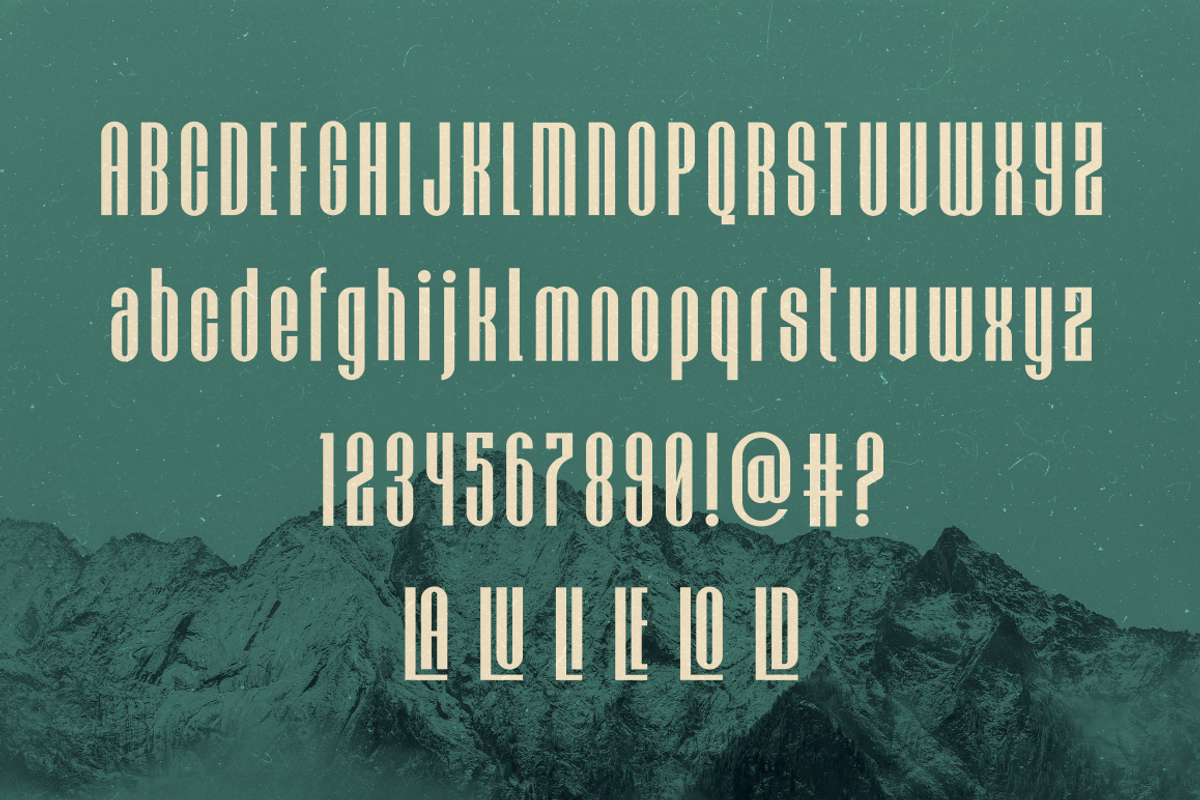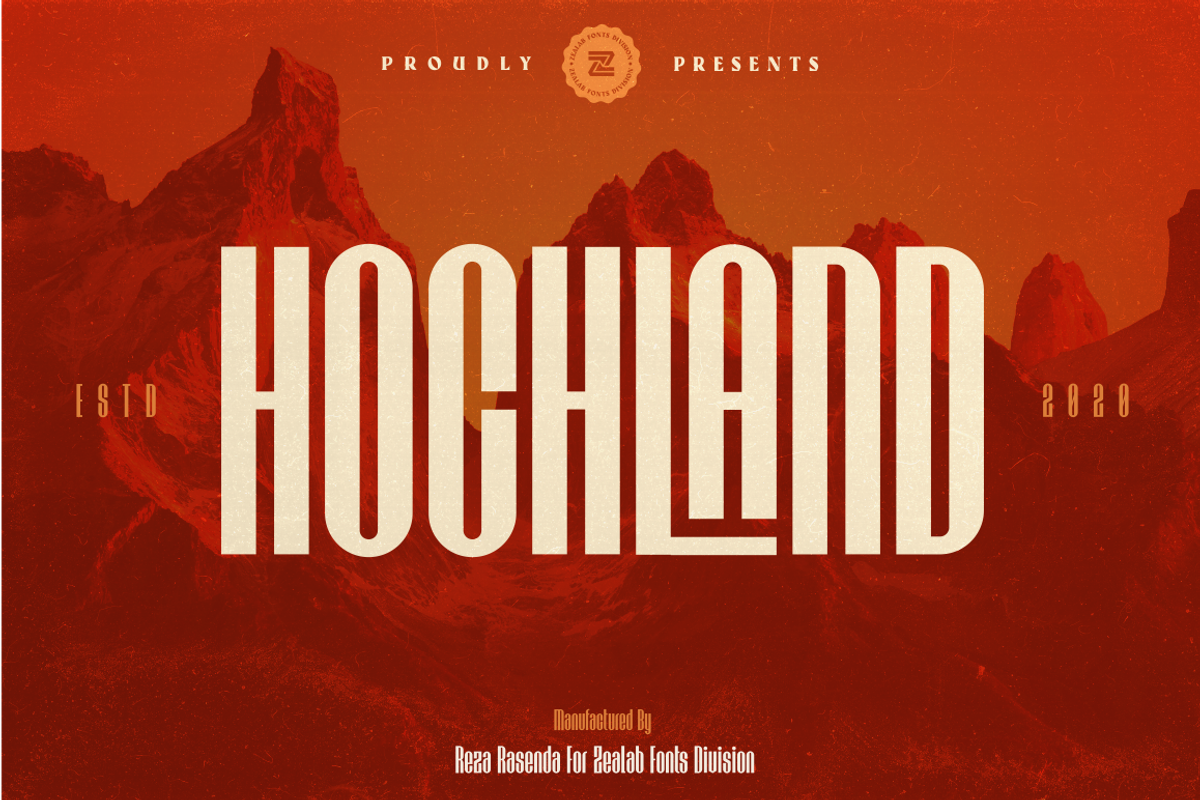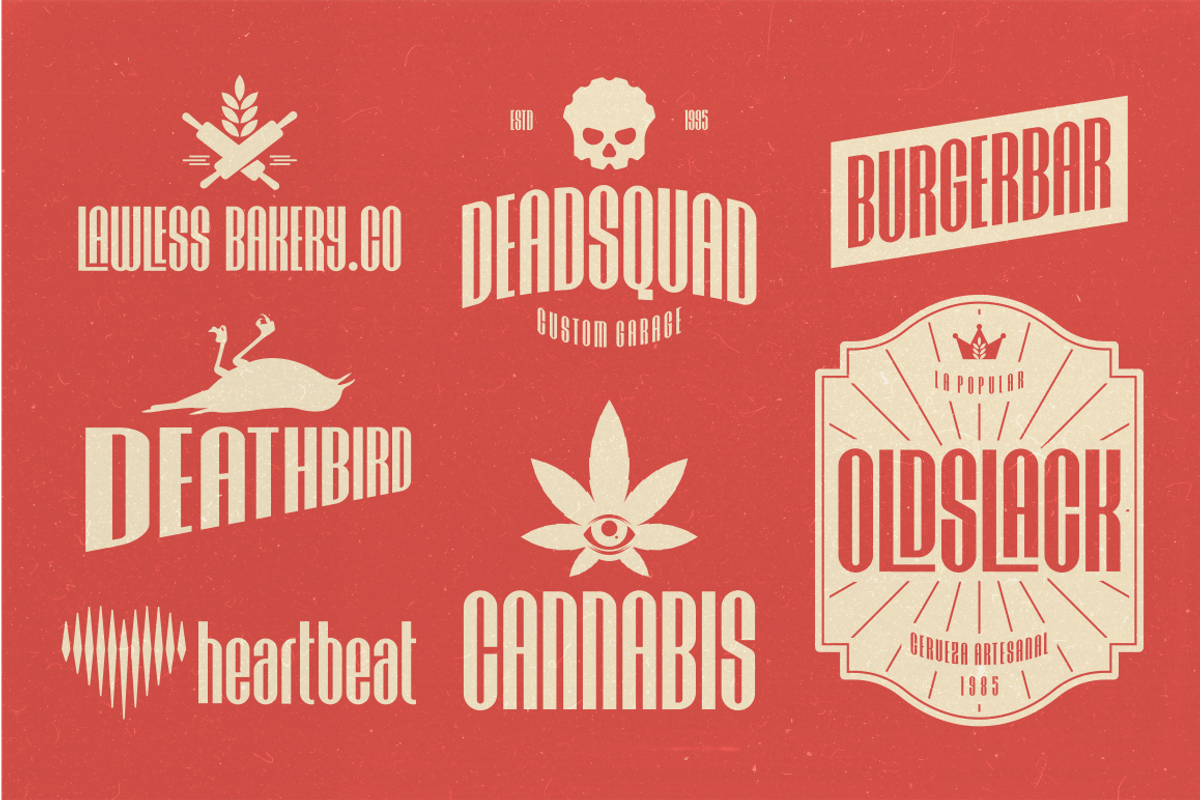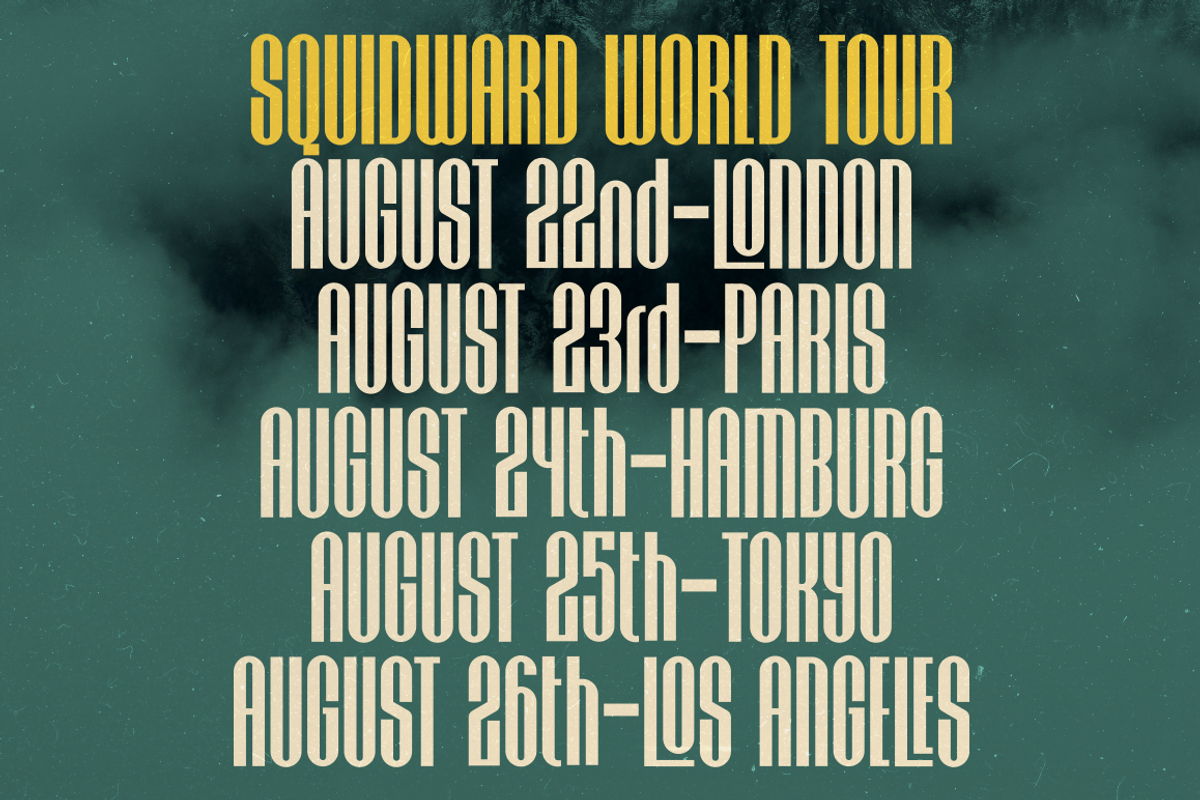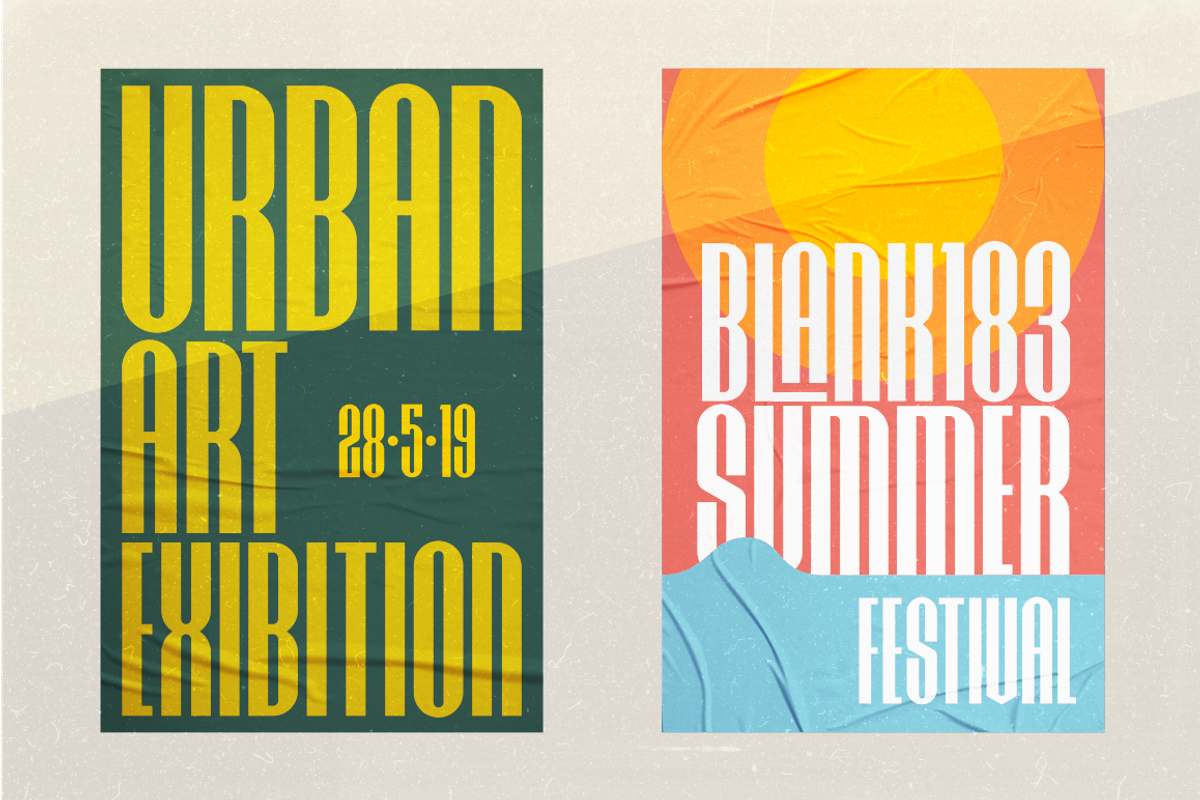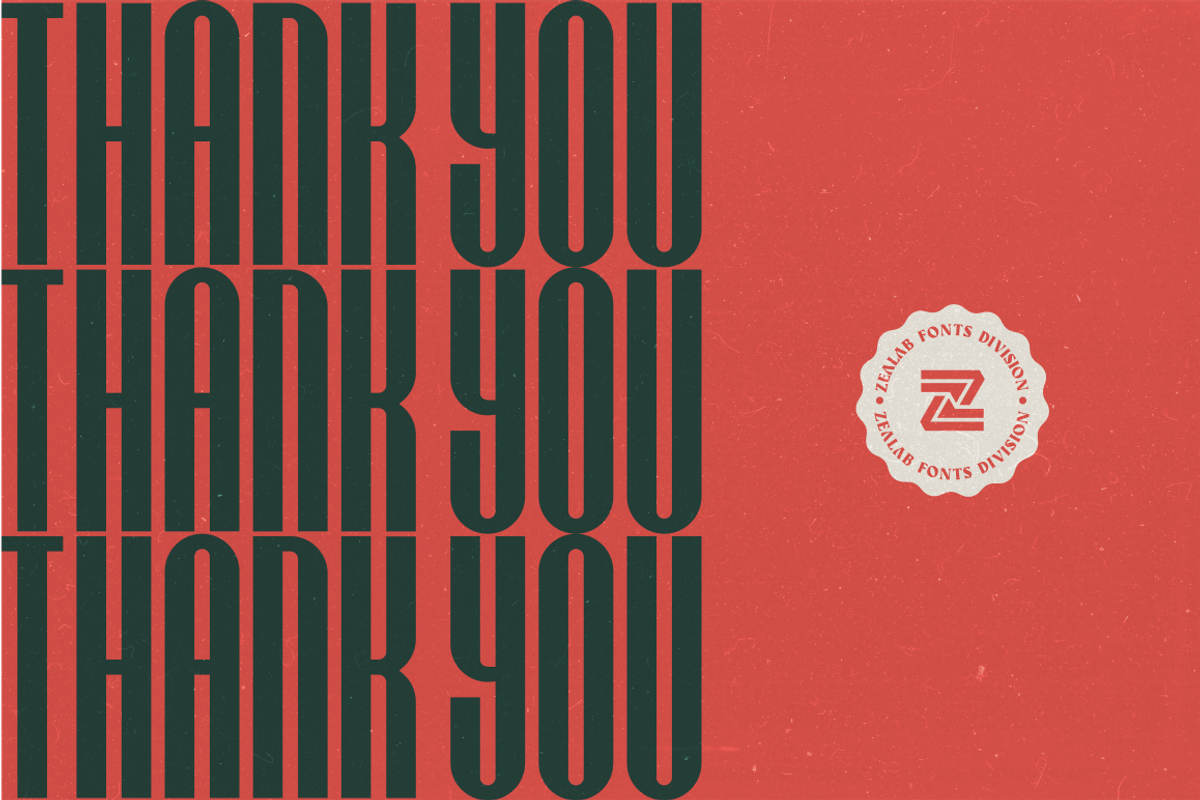
HOCHLAND
Hochland is a modern, urban-condensed font, inspired by street urban poster that combines the classic and modern style. This font perfect for headlines, logotypes, signs, posters, greeting cards, letterheads, t-shirt, word marks, and many more.